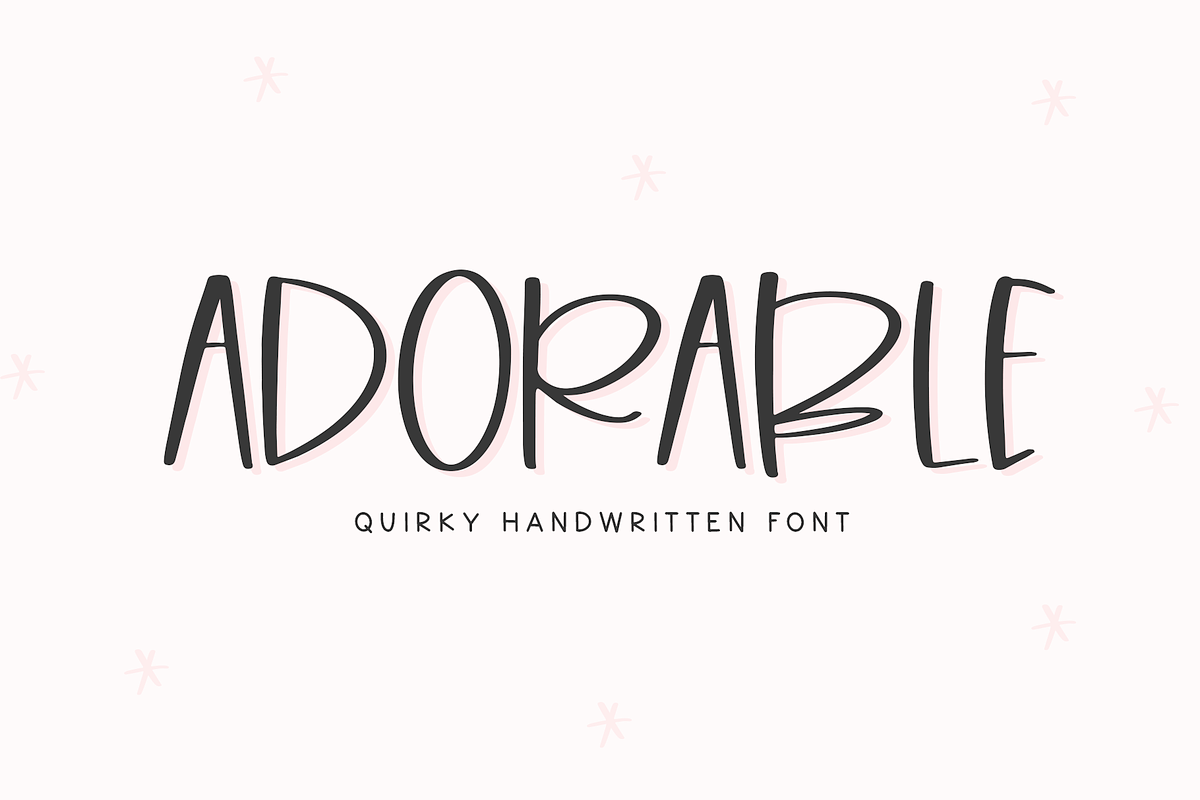
Adorable | Quirky Handwritten Font Free Download
Adorable Quirky Handwritten Font Free Download
Adorable Quirky Handwritten Font Free Download is a fun-loving, whimsical typeface full of charm and personality. With its bouncy baseline, playful strokes, and imperfect yet endearing style, this font is perfect for greeting cards, kids' designs, branding, planners, social media graphics, and DIY projects.
Designed to feel like real handwriting with a quirky twist, Adorable brings a warm, friendly vibe to every project. It’s especially great for creators looking to add a personal, lighthearted touch that feels inviting and genuine.
Whether you’re designing for a small business, a passion project, or just for fun, this font helps you express joy and creativity effortlessly.